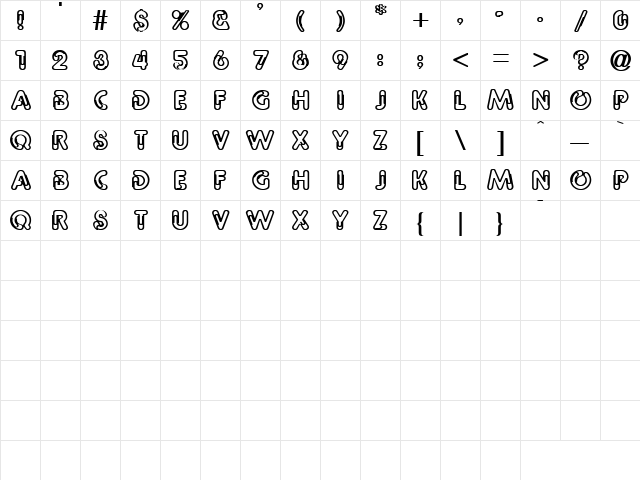
Snow-blind 2 Bold
Design Context for Snow-blind 2 Typeface
Snow-blind 2 is a composed and adaptable typeface that performs quietly and consistently across a wide range of design contexts. Its bold stroke weight gives it real presence on the page.